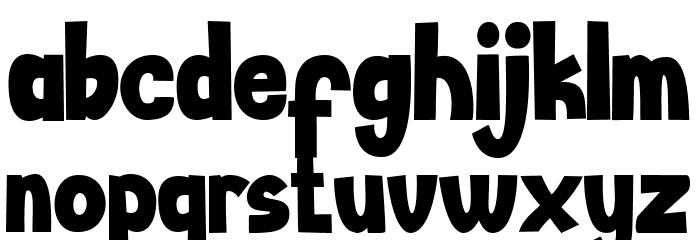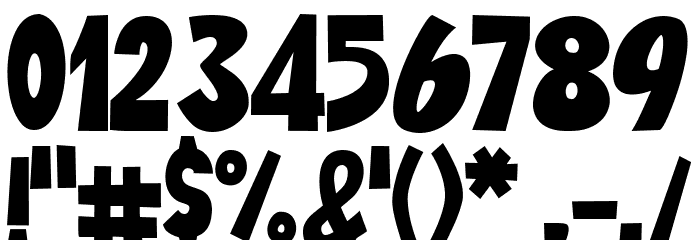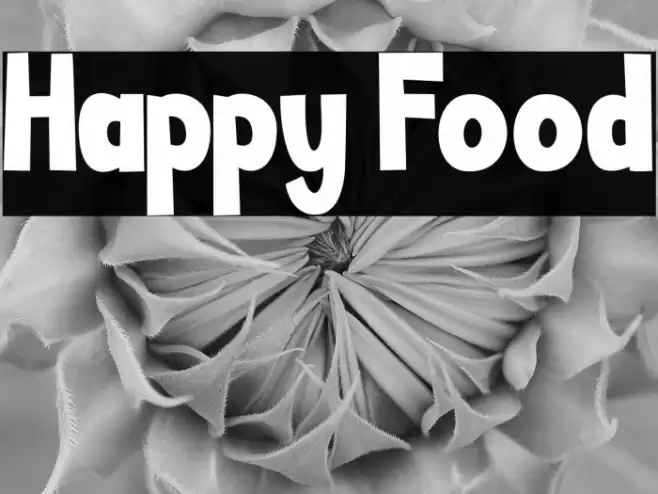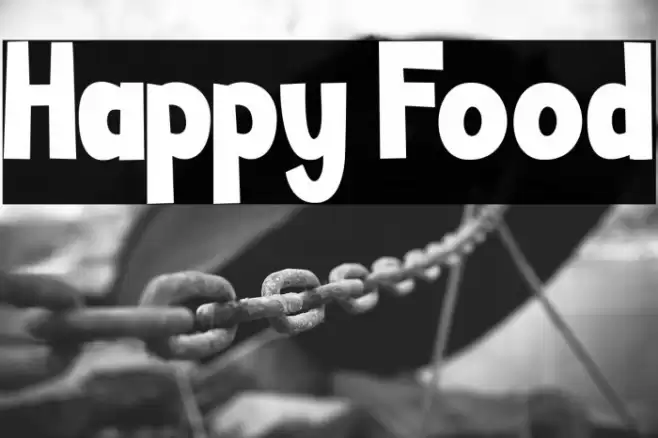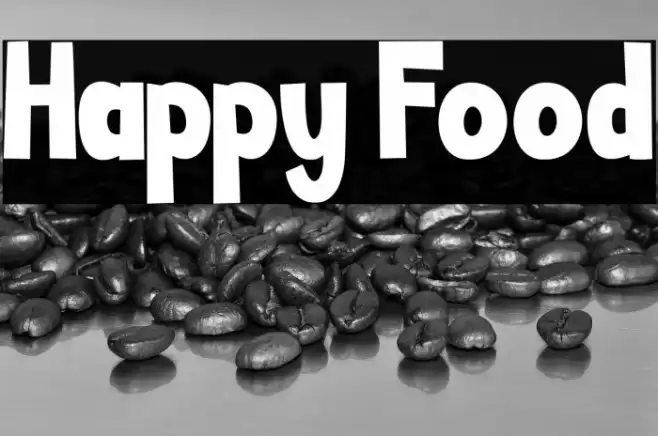
Happy Food Font
This font features a playful and bold design with thick, rounded strokes that give it a friendly and approachable appearance. The uppercase and lowercase letters are consistent in their boldness, with a slight variation in height that adds to the whimsical feel. The numbers and special characters maintain the same playful style, making them suitable for a variety of fun and engaging projects. The overall design is characterized by its thick, uniform strokes and rounded edges, which contribute to its cheerful and lively personality.
A playful, bold font with thick, rounded strokes and a friendly appearance.
- Proposed Projects: Ideal for children's books, playful branding, party invitations, and casual posters.
- Overall Style: Playful, Cheerful